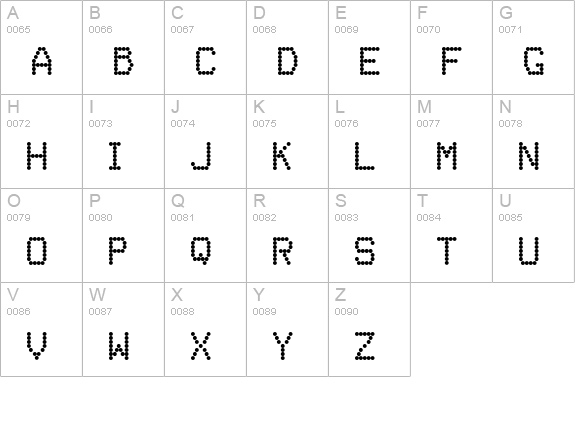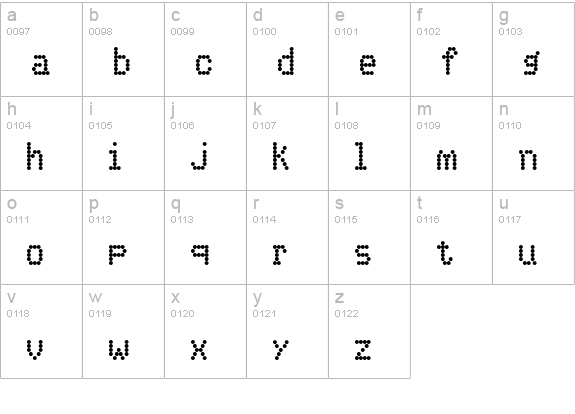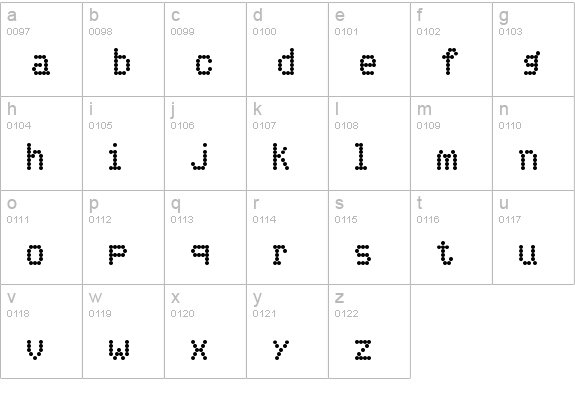
DotMatrix-OneRegular font is a versatile and stylish typeface that brings a modern touch to any design project. With its clean lines and sharp edges, this font is perfect for both digital and print applications. Its unique dot matrix style gives a futuristic feel while still maintaining a classic elegance. One of the best features of DotMatrix-OneRegular font is that it is available for free download at FontsMarket.com. This means that you can easily access this high-quality font without any cost, making it a valuable addition to your font library. Whether you need a sleek and contemporary look for a website, a professional layout for a brochure, or a creative touch for a logo, DotMatrix-OneRegular font has you covered. Don't miss out on the opportunity to enhance your designs with this dynamic and eye-catching font. Download DotMatrix-OneRegular today and take your projects to the next level!